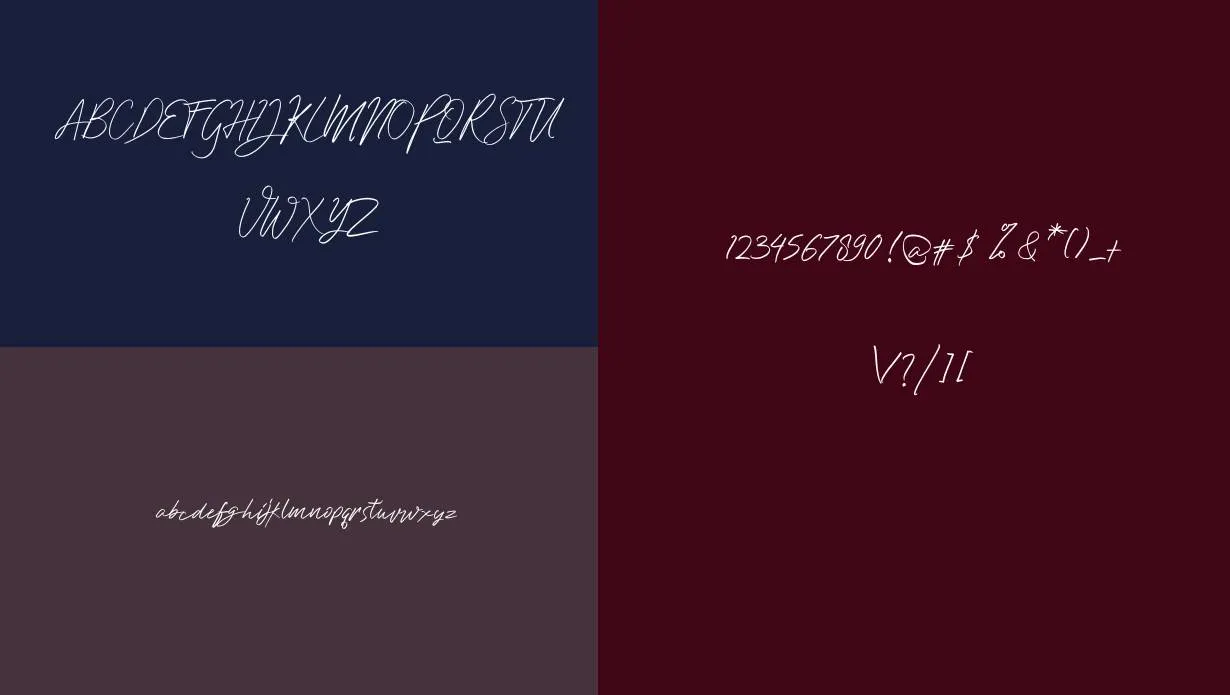
The Steven Anderson font embodies a modern and sleek appearance, often used in various design projects. Its clean and stylish look makes it a great fit for logos, digital interfaces, or any design seeking a contemporary typographic style.
| Name | Steven Anderson Font |
| Designer | Ikrar Bey Khubaib |